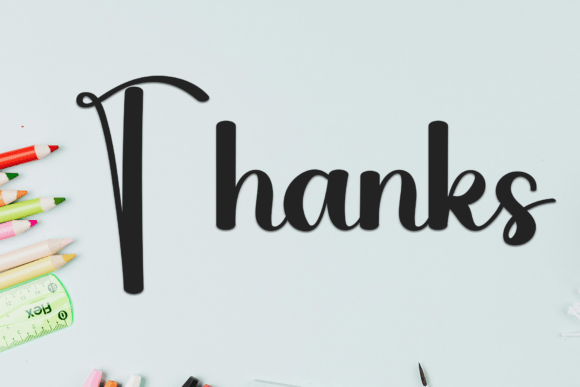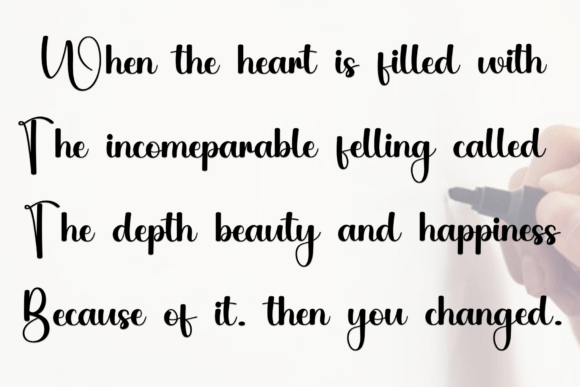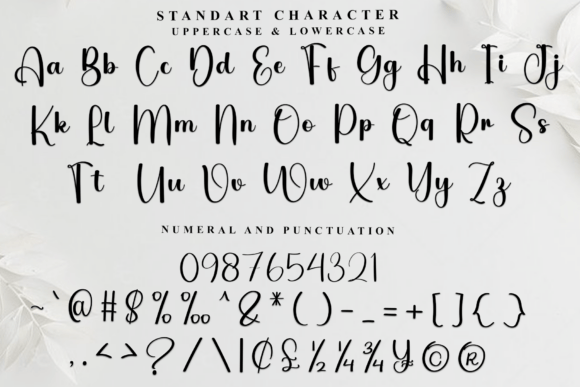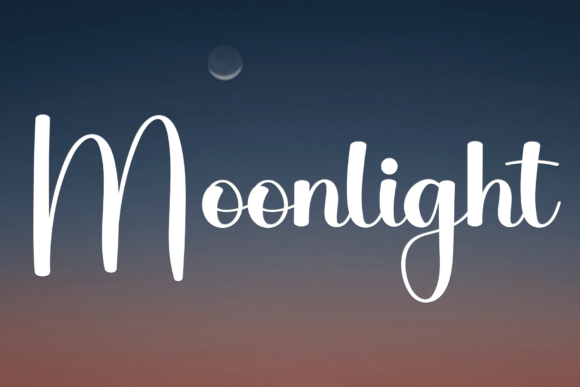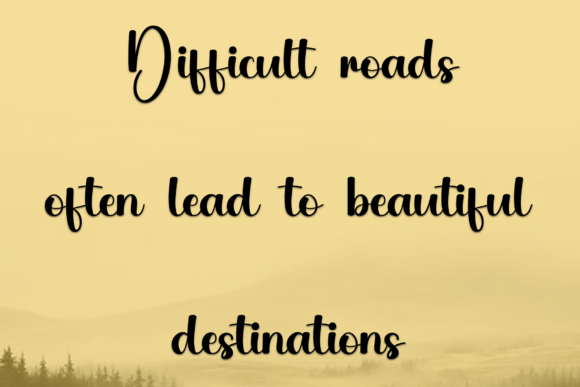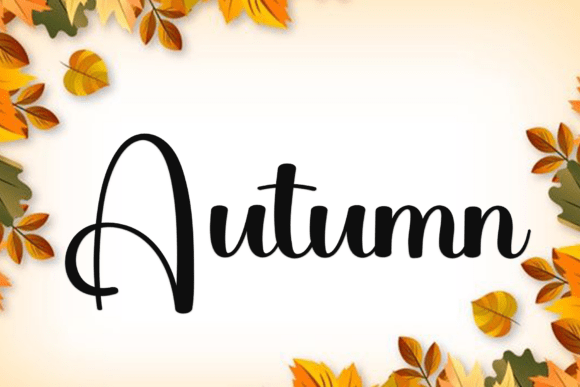
The Magic of Bulking Font: Elevate Your Holiday Designs
I still remember the design project that led me to discover Bulking Font. It was a festive holiday card for a client, and I was struggling to find the perfect typeface that captured the cheer and nostalgia of the season. The design had to be fun, playful, and full of holiday spirit. After hours of searching, I stumbled upon Bulking Font, and it instantly became the star of my design. In this article, I’ll share my experience with Bulking Font, its features, and how to make the most of it in your designs.
An Honest Review of Bulking Font
What I Love About Bulking Font
• ✨ Festive and merry vibe that’s perfect for holiday designs
• ✅ Decorative elements and whimsical flair that add a touch of enchantment
• 🎉 PUA encoded, making it easy to access glyphs and ligatures
• 📚 Suitable for various design projects, including greeting cards, gift tags, and holiday-themed projects
While Bulking Font is an excellent choice for holiday designs, there are a few things to keep in mind:
• ⚠️ The font’s playful nature might not be suitable for formal or professional designs
• 🤔 Some users might find the font a bit too ornate or overwhelming for certain design projects
The Backstory of Bulking Font
According to the font’s creators, Bulking Font was inspired by traditional holiday decorations and the nostalgia of childhood memories. The designers aimed to create a font that would capture the magic and wonder of the holiday season, and they succeeded. With its decorative elements and whimsical flair, Bulking Font is sure to bring a touch of enchantment to your designs.
What is Bulking Font? Bulking Font is a festive and merry typeface designed for holiday and seasonal designs.
Is Bulking Font PUA encoded? Yes, Bulking Font is PUA encoded, making it easy to access glyphs and ligatures.